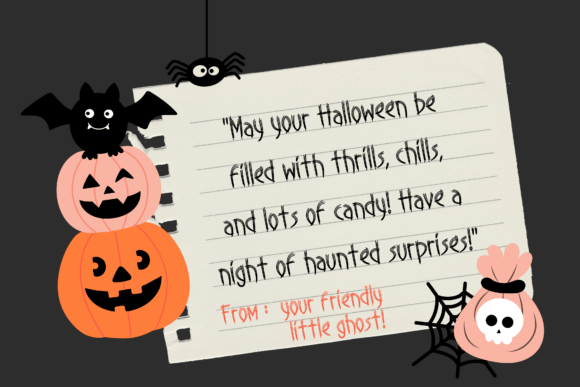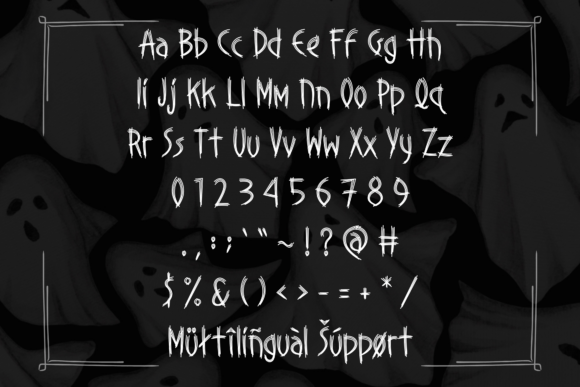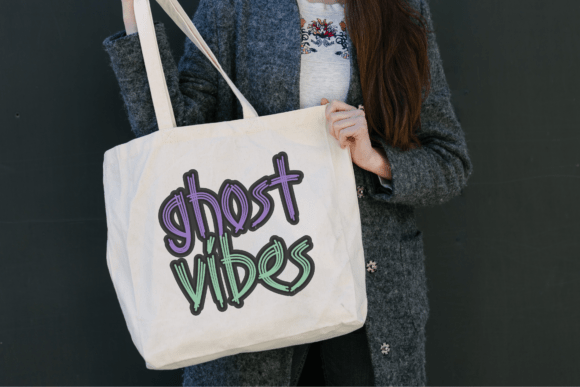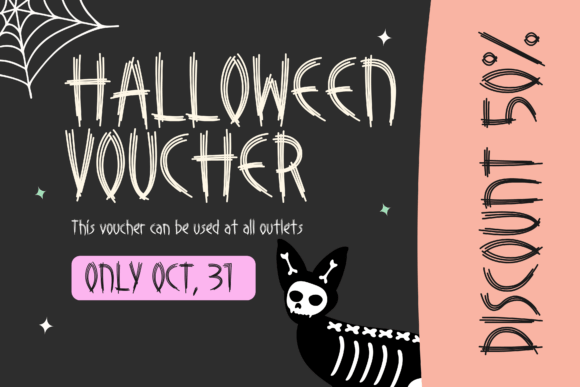
Introduction to Phantomlines Font
As you sit down to start your next creative project, do you ever wish for a design resource that captures the essence of Halloween without sacrificing style? You’re in luck because Phantomlines Font is here to bring a touch of spooky sophistication to your designs. Whether you’re crafting a haunting poster or sending out eerie invitations, this font is the perfect way to set the mood.
Phantomlines Font is more than just a seasonal novelty – it’s a versatile design tool that can be used to create high-quality, eye-catching designs throughout the year. With its clean, layered strokes and ghostly shadow effect, this font adds a unique twist to any design project. Plus, with a transparent background, you can easily integrate it into your designs without worrying about clutter.
Key Features of Phantomlines Font
- Unique, hand-drawn design ideal for creative projects and design resources.
- Perfect for designers and artists seeking a high-quality, unique font for their creative projects.
Honest Review: Phantomlines Font
As a designer, I’m always on the lookout for high-quality design resources that can elevate my creative projects. I recently stumbled upon the Phantomlines Font, and I’m excited to share my honest review.
- ✨ High-quality design: The Phantomlines Font is beautifully crafted with clean lines and a unique aesthetic.
- ⚠️ Limited character set: The font only includes a limited set of characters, which may not be suitable for extensive text-based projects.
- ⚠️ Not ideal for large text: The font may not be the best choice for large text, as it can become difficult to read.
Overall, I’m impressed with the Phantomlines Font, and I think it’s a great addition to any designer’s toolkit. While it may have some limitations, it’s a high-quality resource that can add a touch of elegance to any creative project.
Tips for Getting the Most Out of Phantomlines Font
Experiment with different font sizes, colors, and styles to create unique designs. Use Phantomlines Font in combination with other design resources to add depth and visual interest to your projects.
Phantomlines Font is perfect for creating eye-catching titles, headings, and quotes. Use it in social media graphics, presentations, and posters to add a touch of sophistication and creativity.